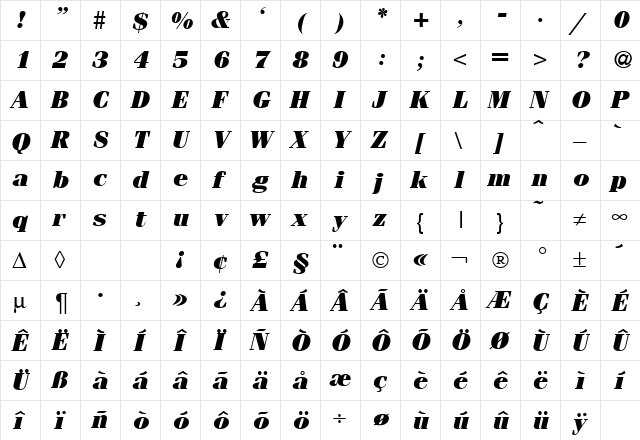
FerventUltra RegularItalic
Design Context for FerventUltra Typeface
FerventUltra takes a measured approach to typography — its balanced proportions and neutral character make it a reliable workhorse for both digital and print work. The dynamic lean of this cut emphasises speed and emphasis in any layout.
Pro Tip: Use FerventUltra for emphasis, pull quotes, and subheadings where its slanted energy can add rhythm to the layout.